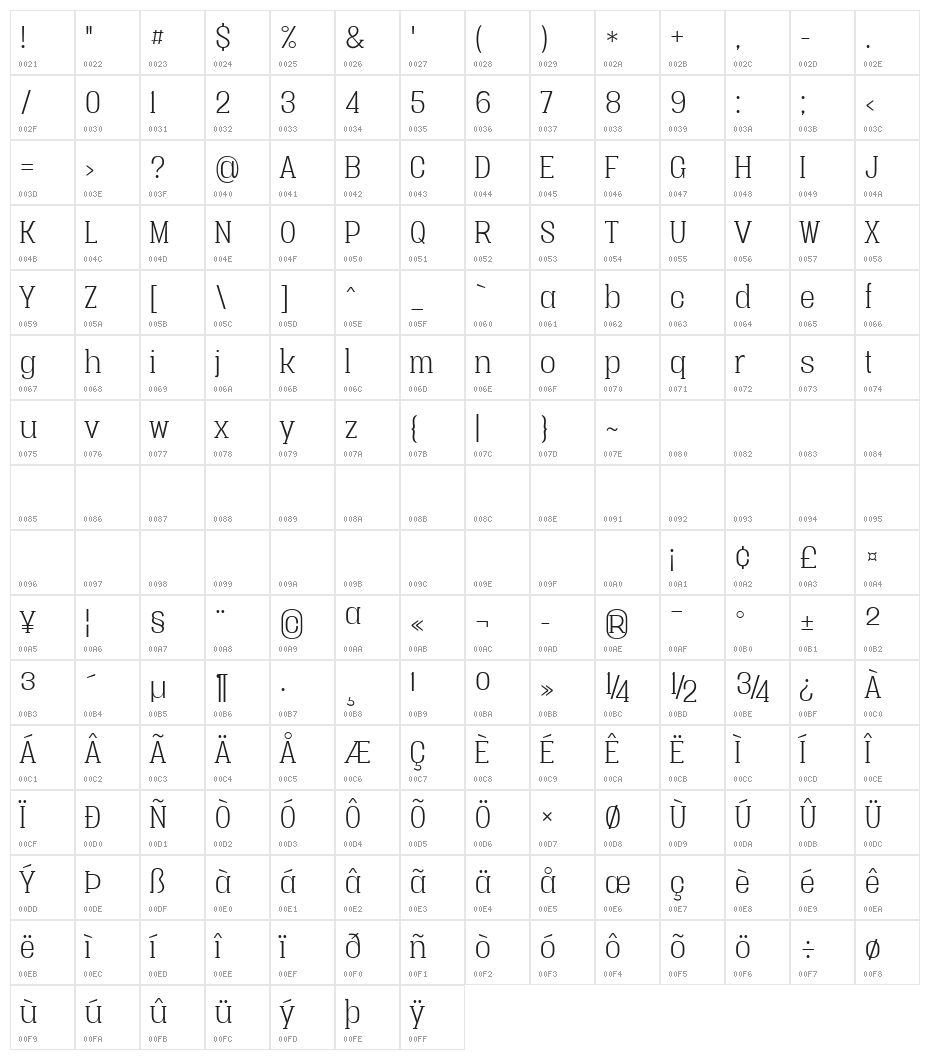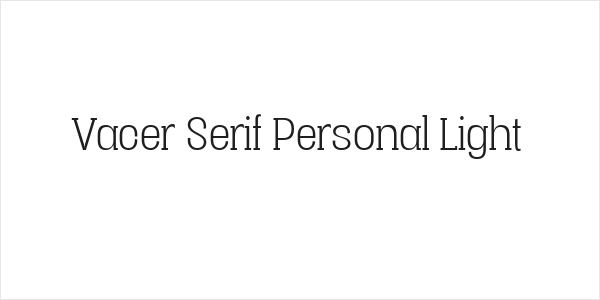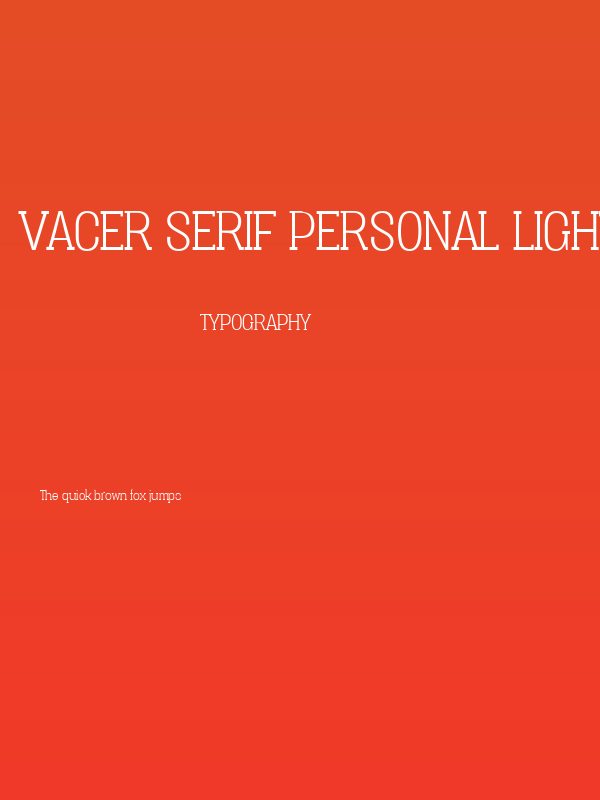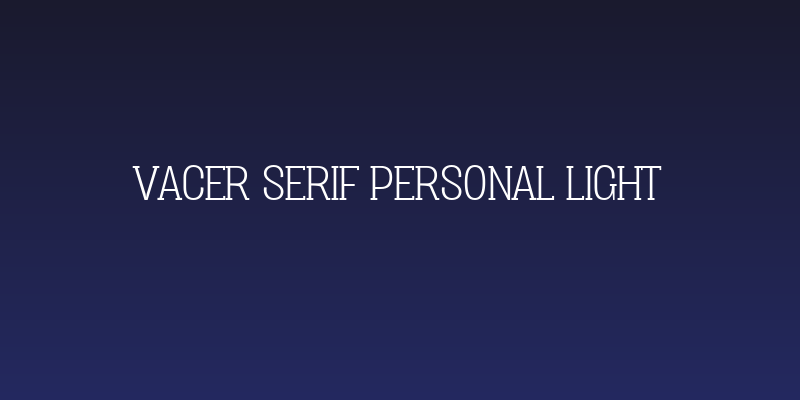
Vacer Serif Personal Light Font
Vacer Serif Personal Light Description
This font exhibits a clean and modern serif style with a light weight, making it ideal for elegant and sophisticated designs. The characters are well-proportioned with a tall x-height, contributing to its readability. The serifs are subtle, adding a touch of classic elegance without overwhelming the overall modern aesthetic. The spacing between characters is normal, ensuring clarity and legibility. The font's contrast is medium, with a consistent stroke thickness that enhances its refined appearance. It is versatile for various design applications, from editorial layouts to branding projects.
| Use Case | Editorial design, Branding, Invitations |
| Proposed Projects | Ideal for editorial design, branding, invitations, and any project requiring a touch of sophistication. |